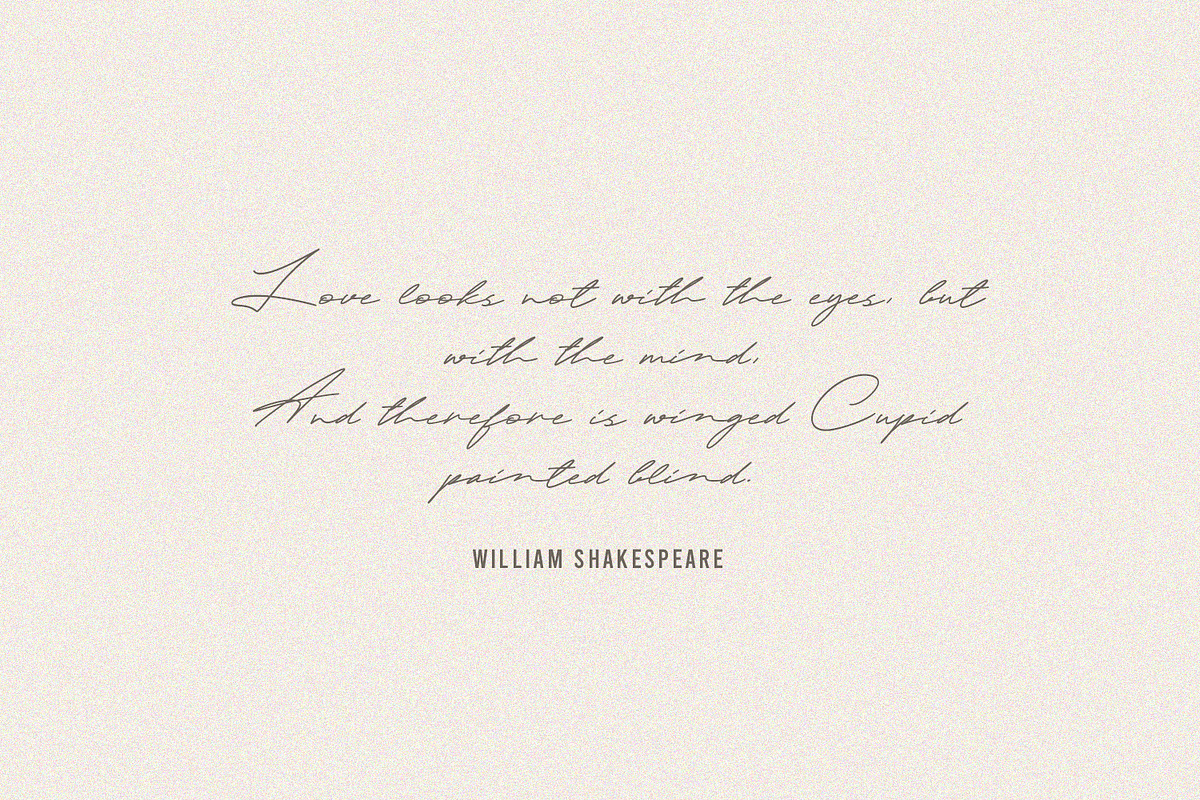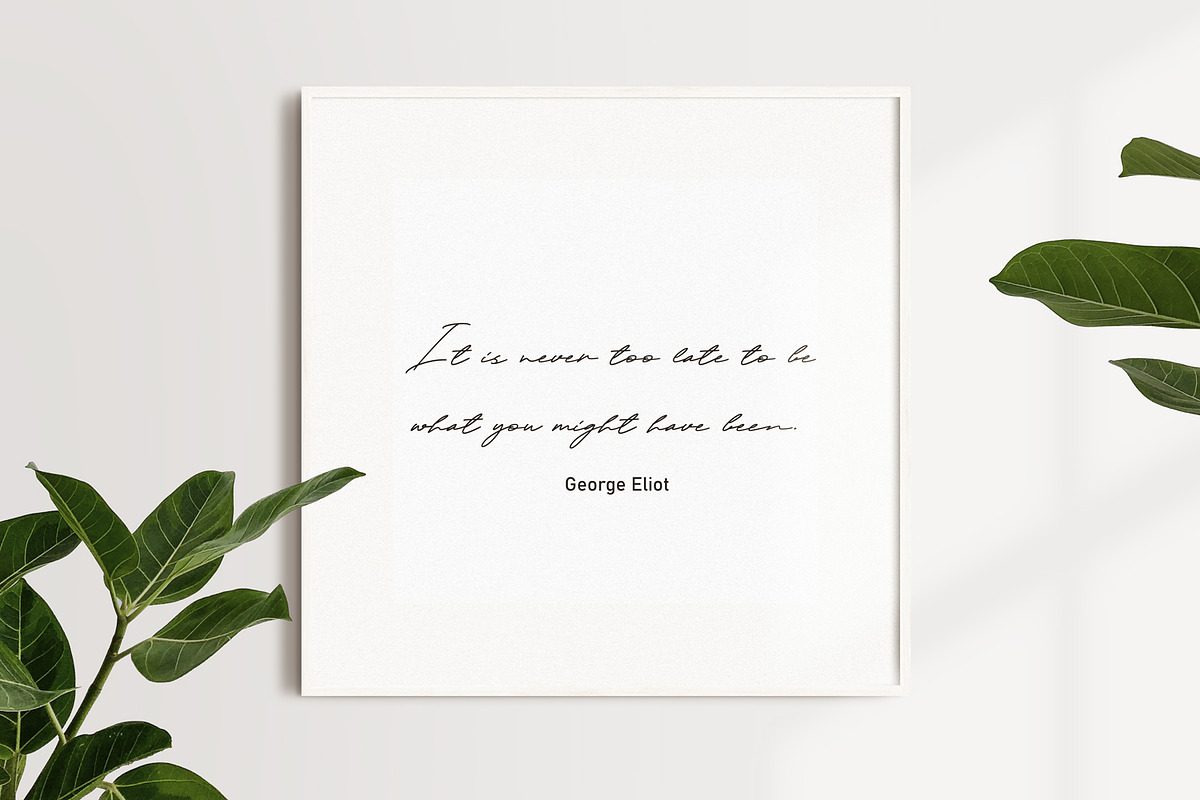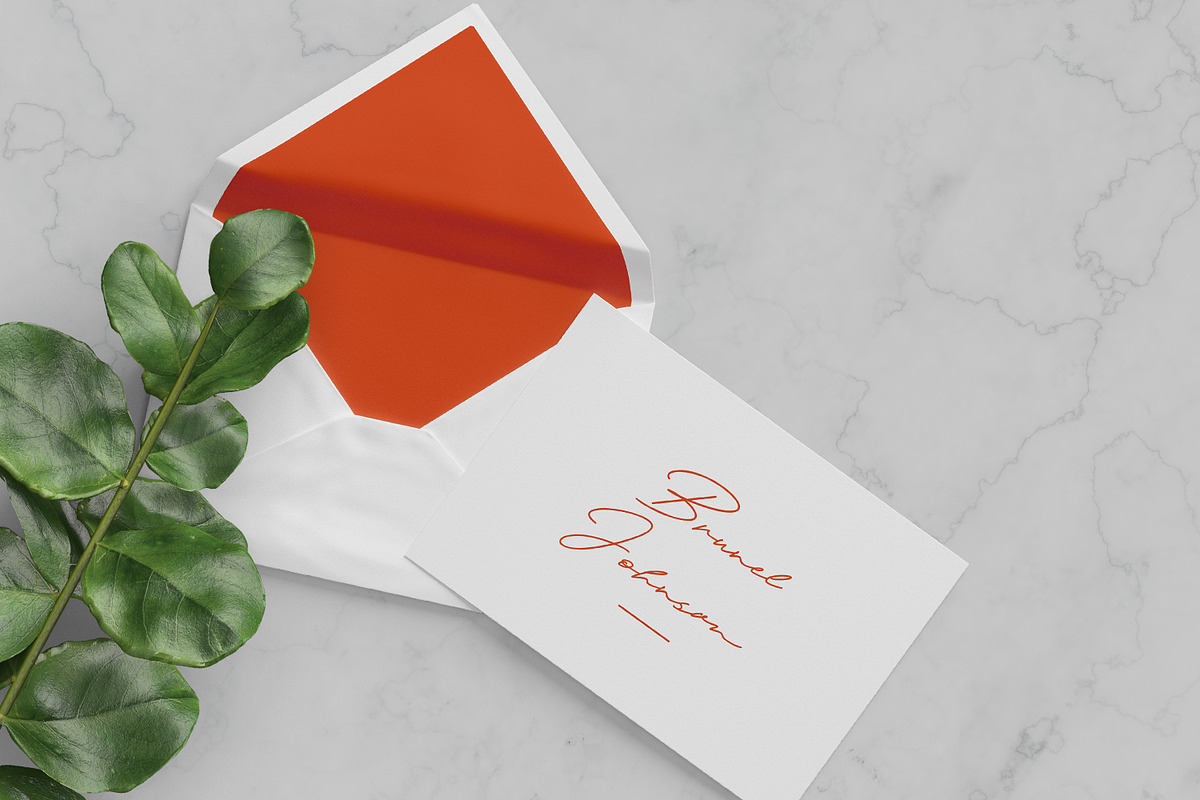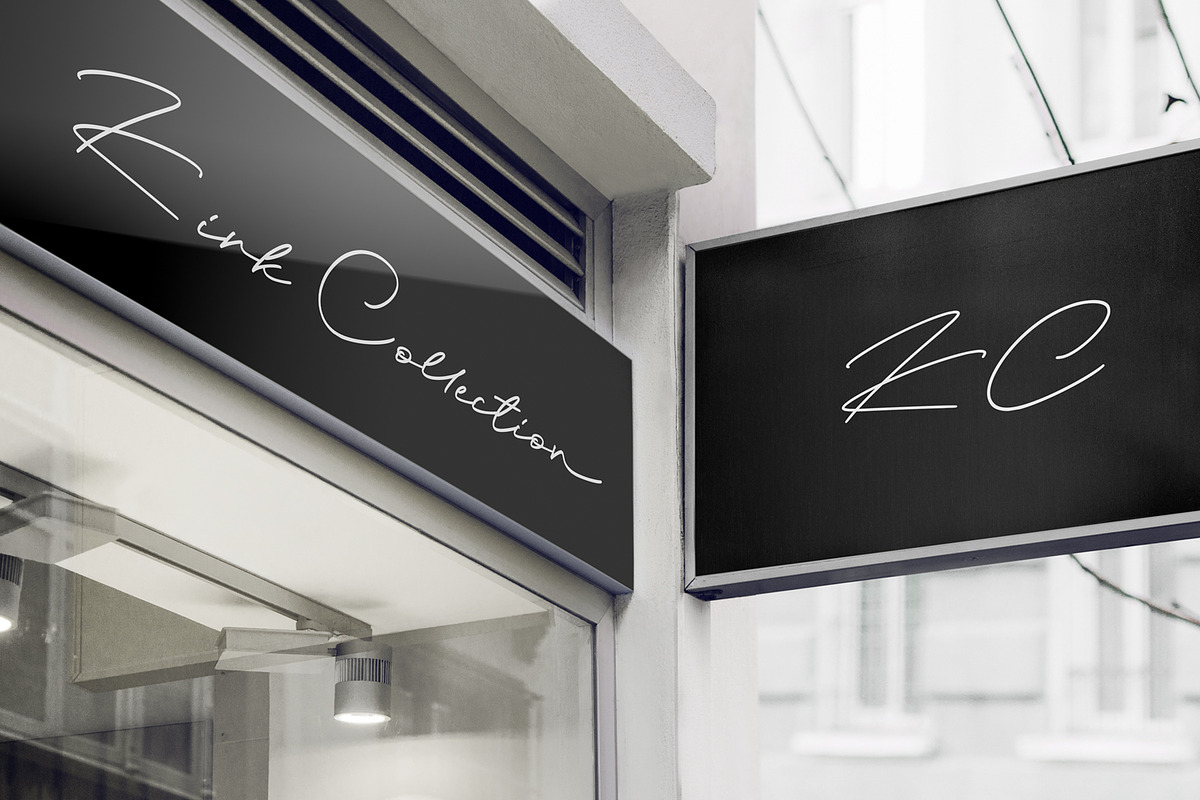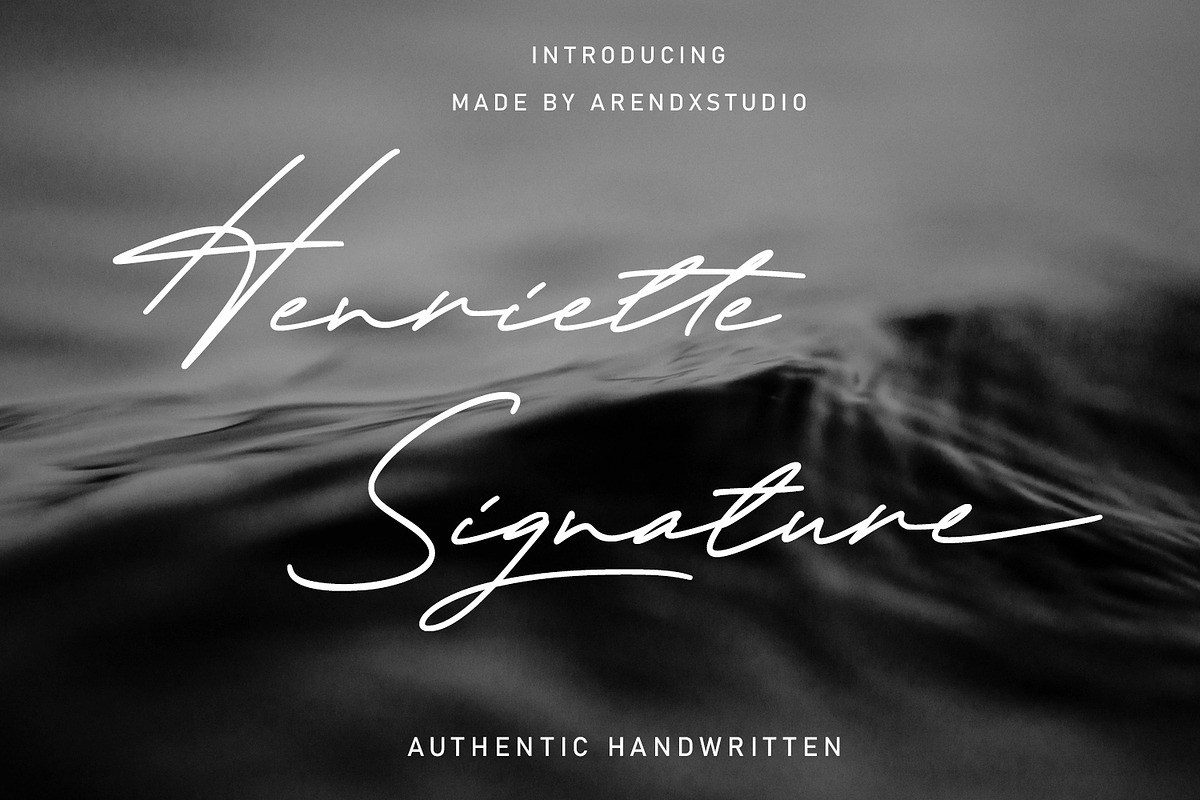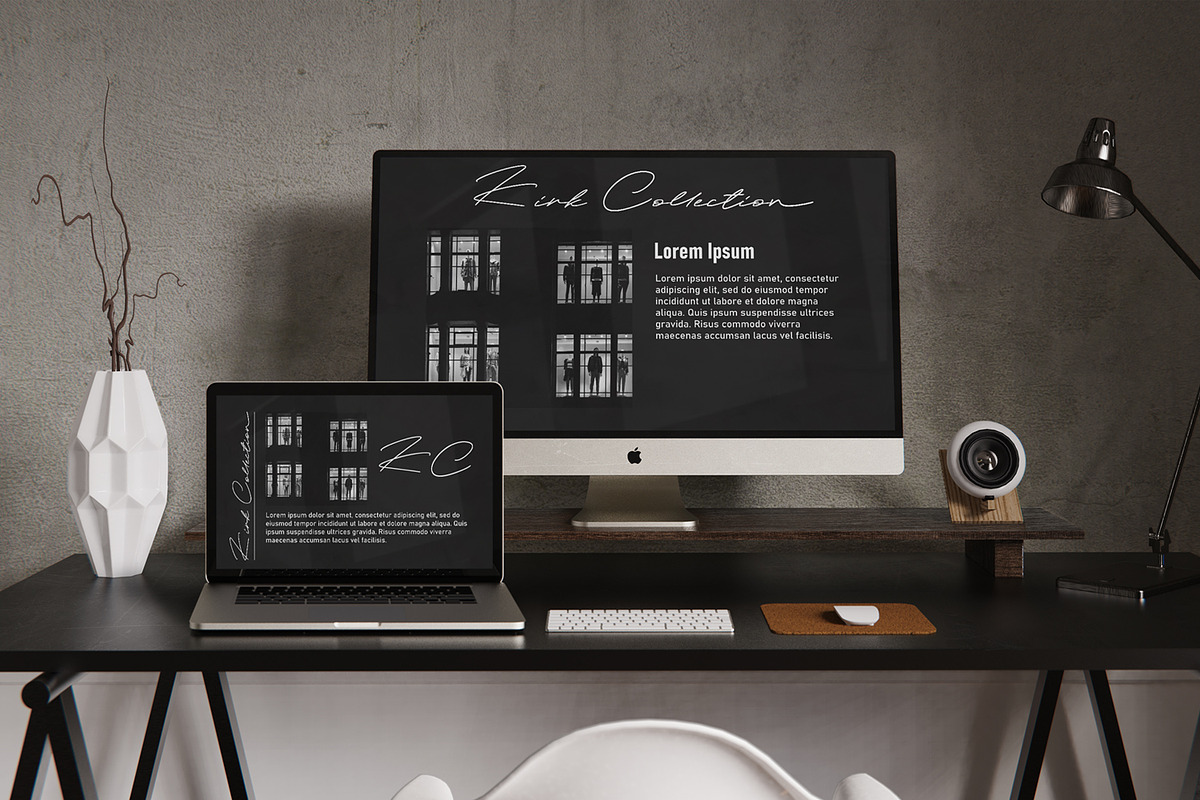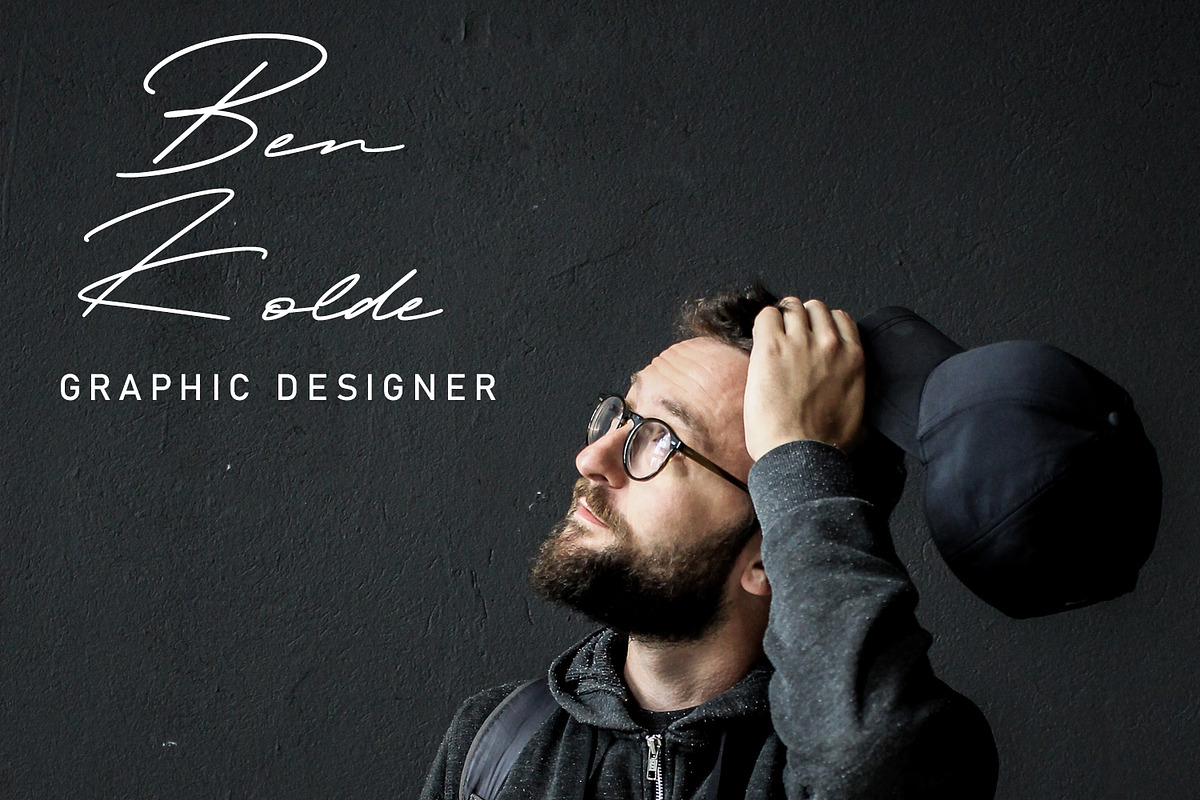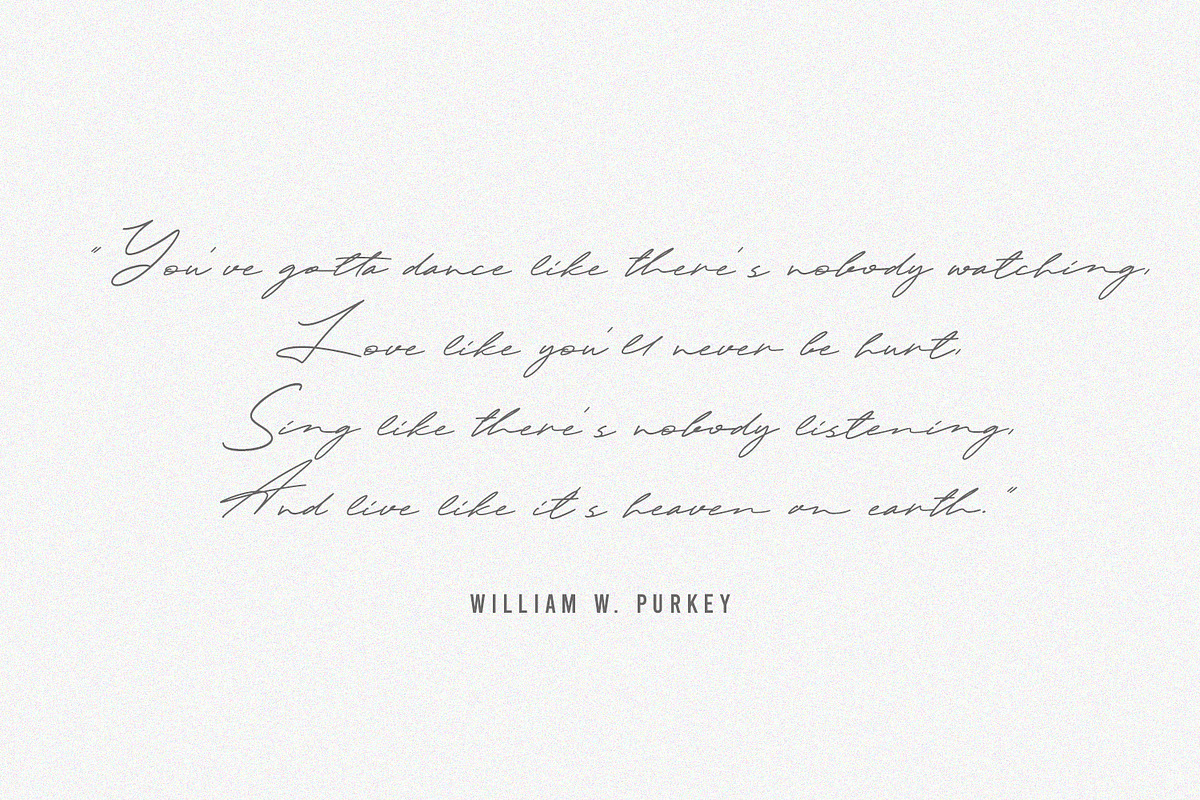
Henriette - Signature Script Font
Henriette Signature is a handwritten signature script with a natural & stylish flow. This collection of scripts is perfect for personal branding. this works well for many applications. Everything from personal branding & wedding invitations to advertising could benefit from this collection of signature fonts
Henriette - Signature Script Font by Arendxstudio fits naturally into Branding, posters, packaging, typography.